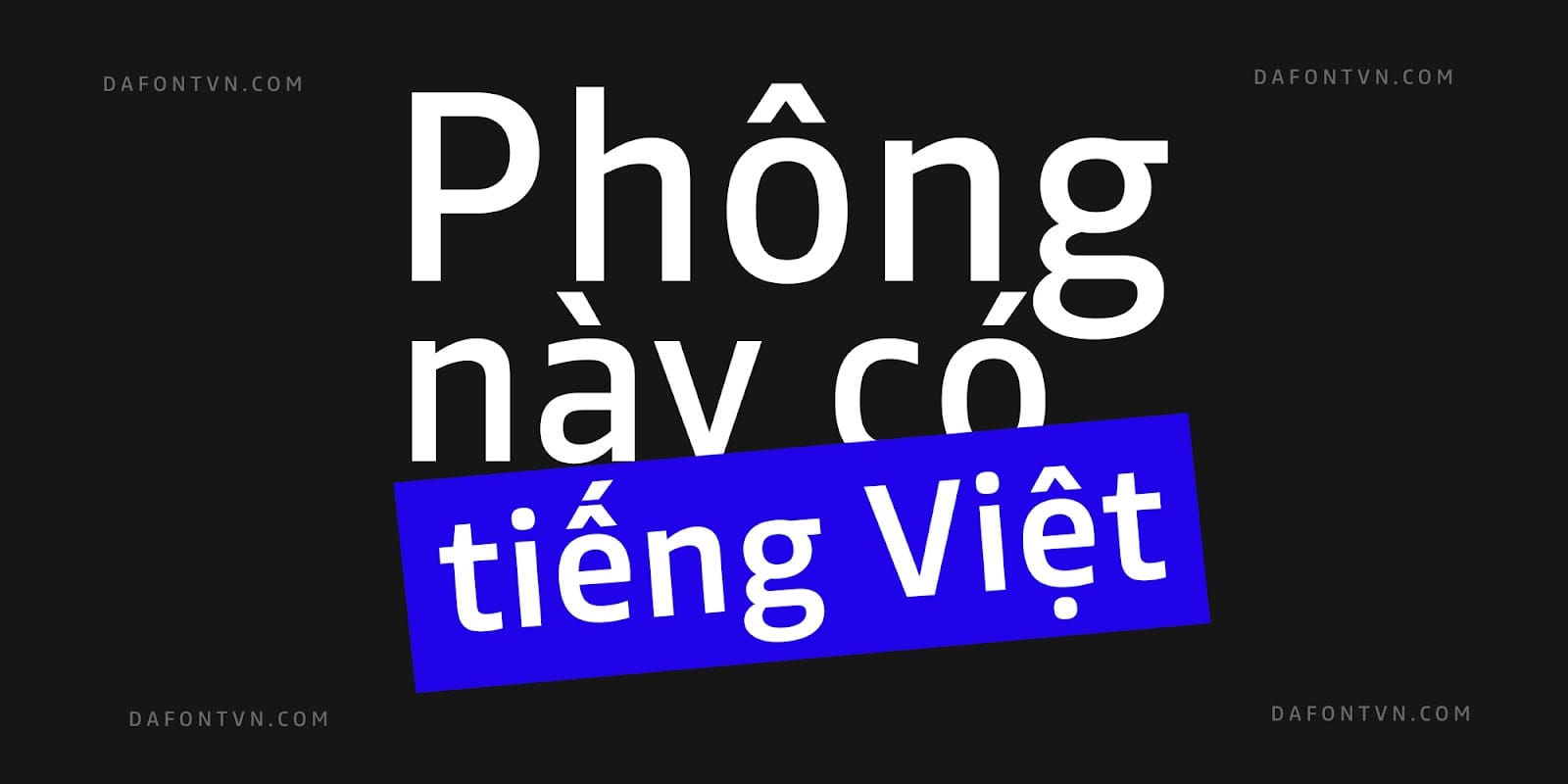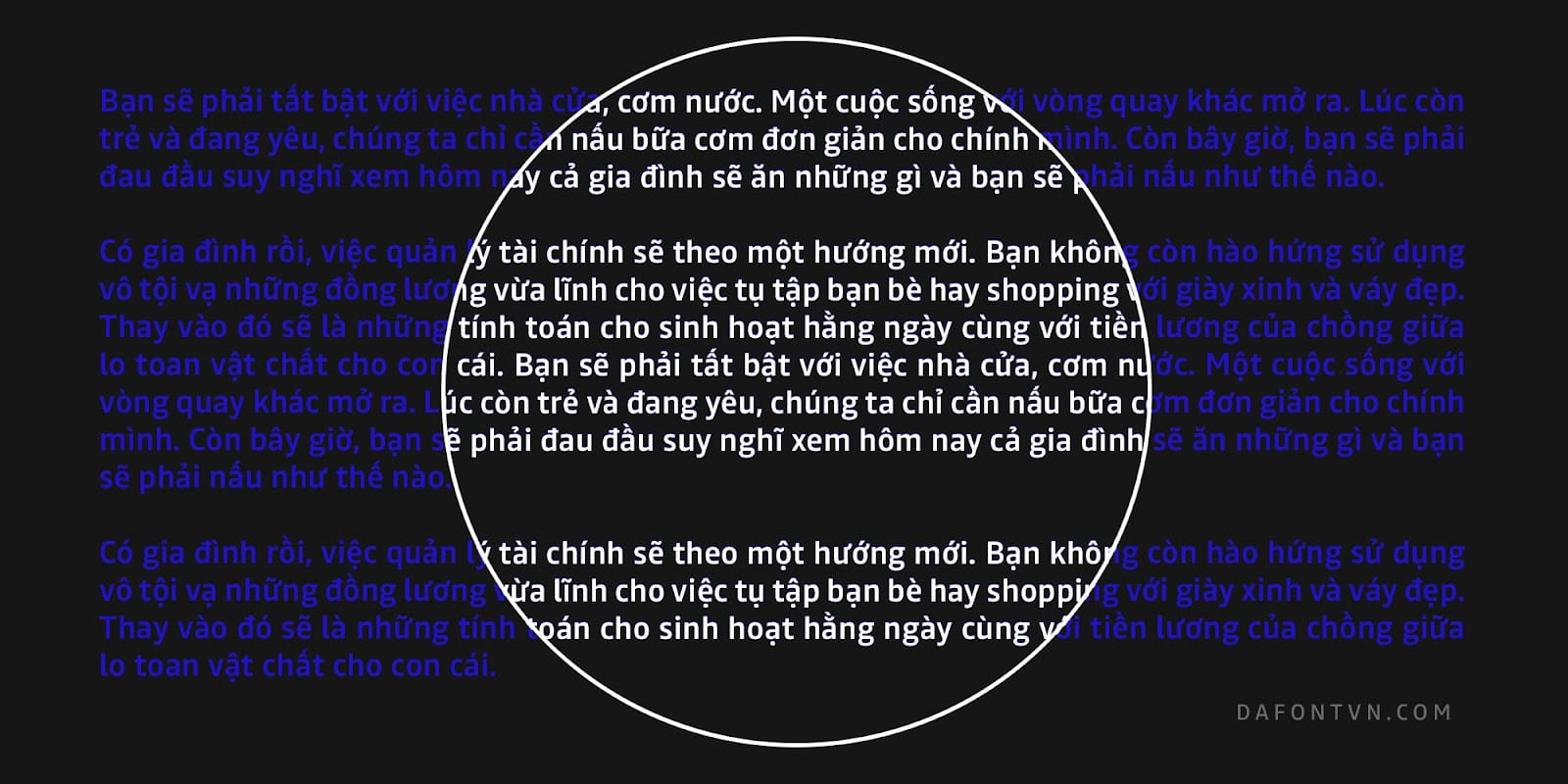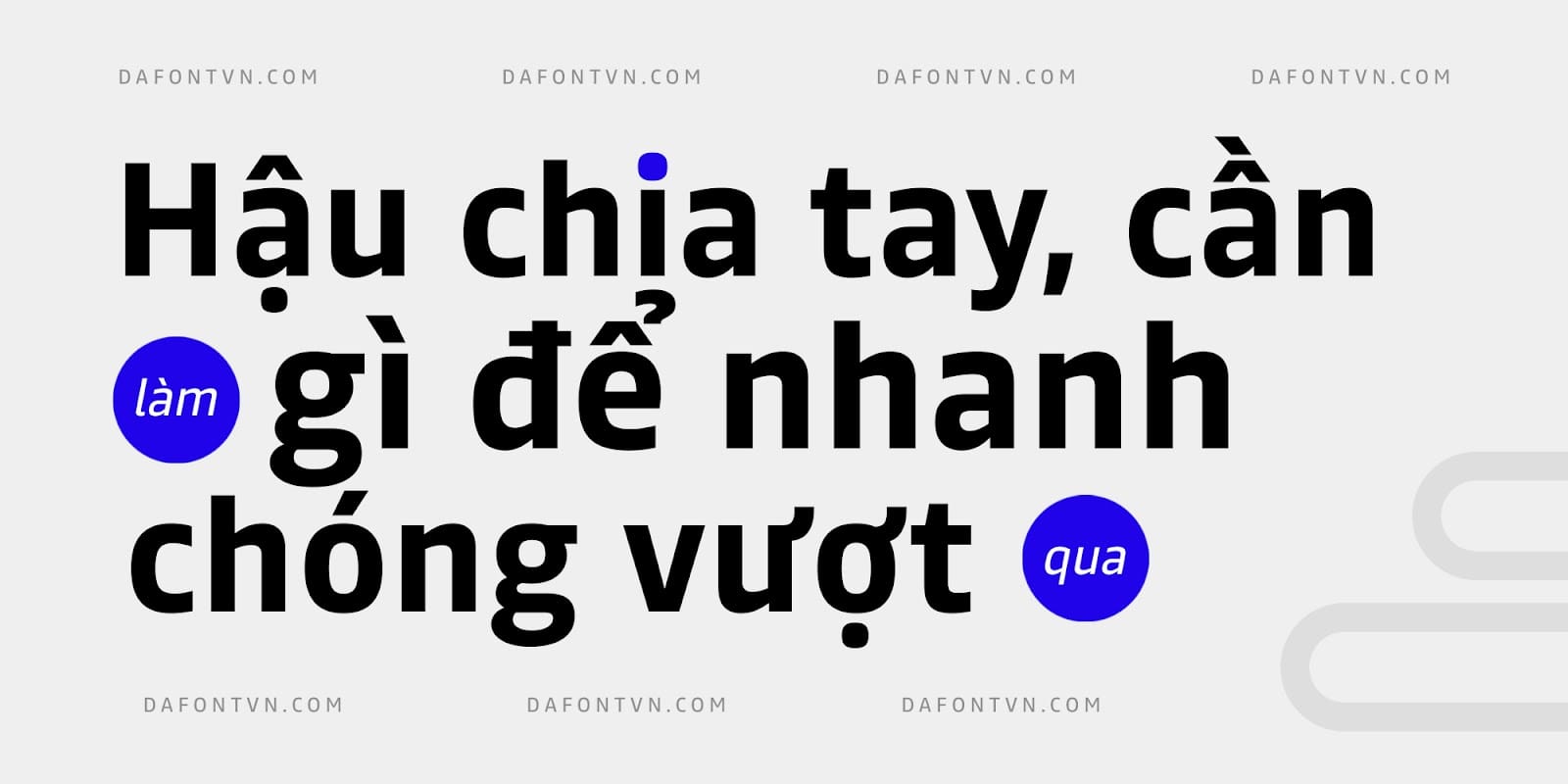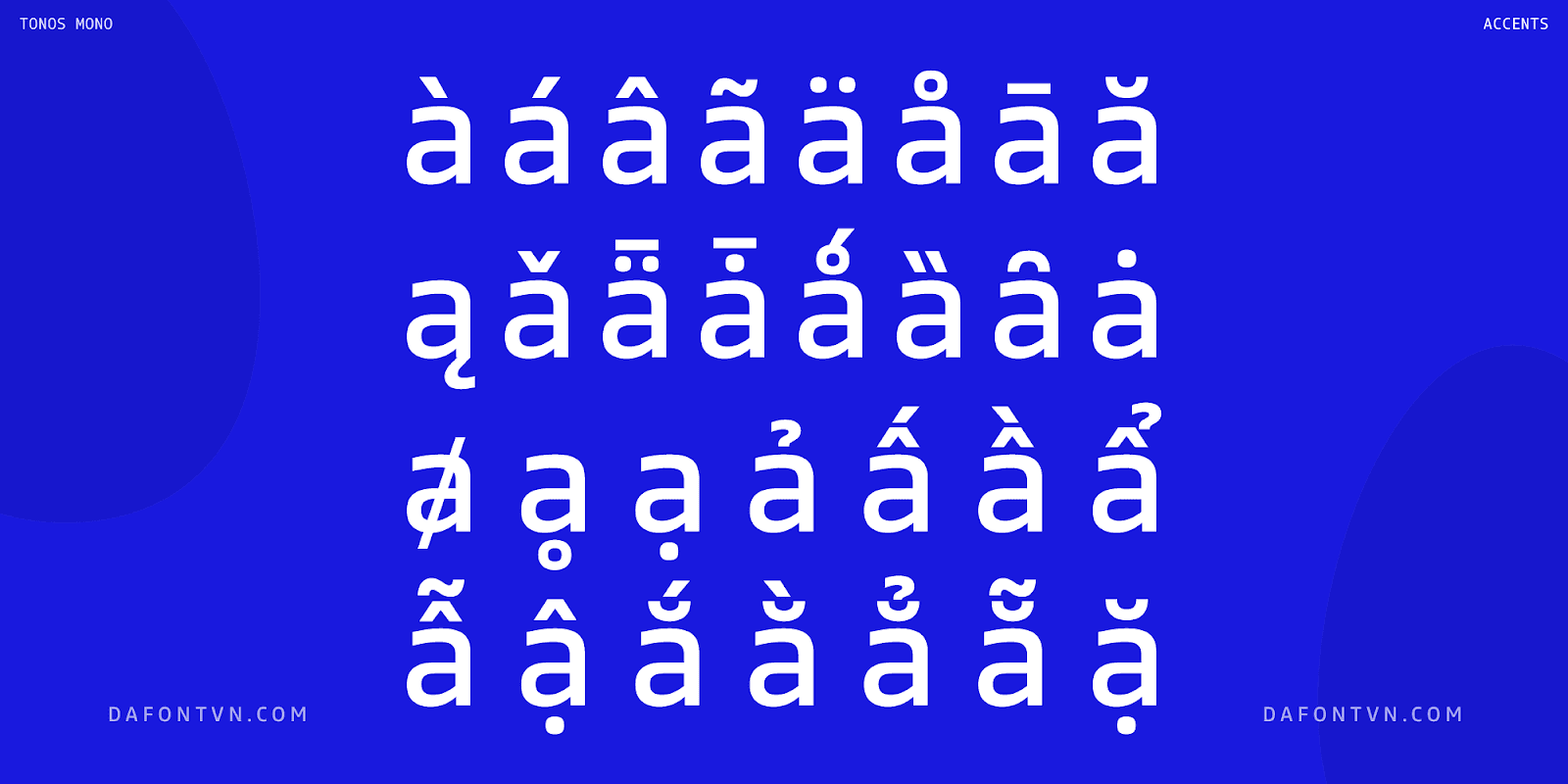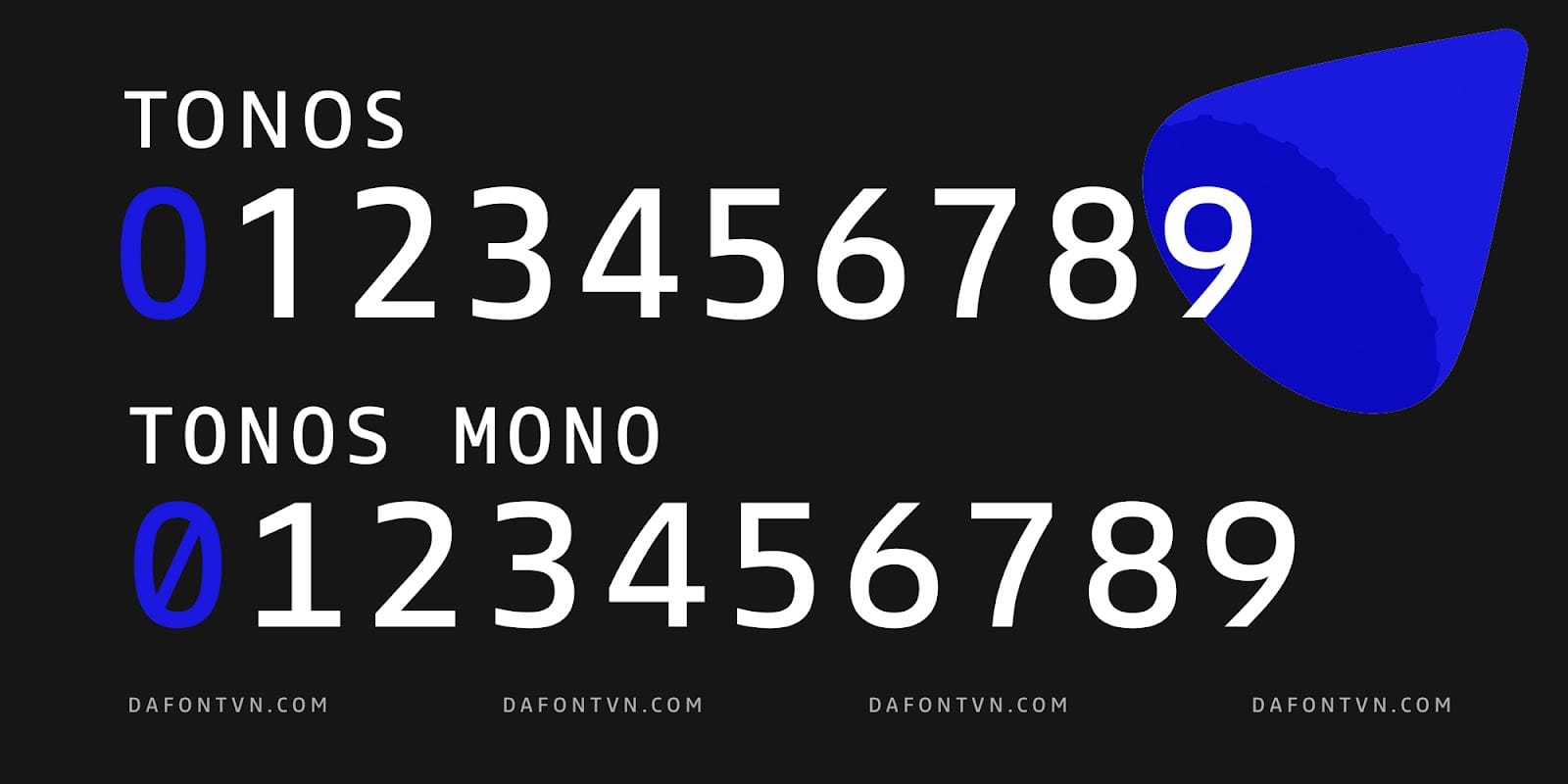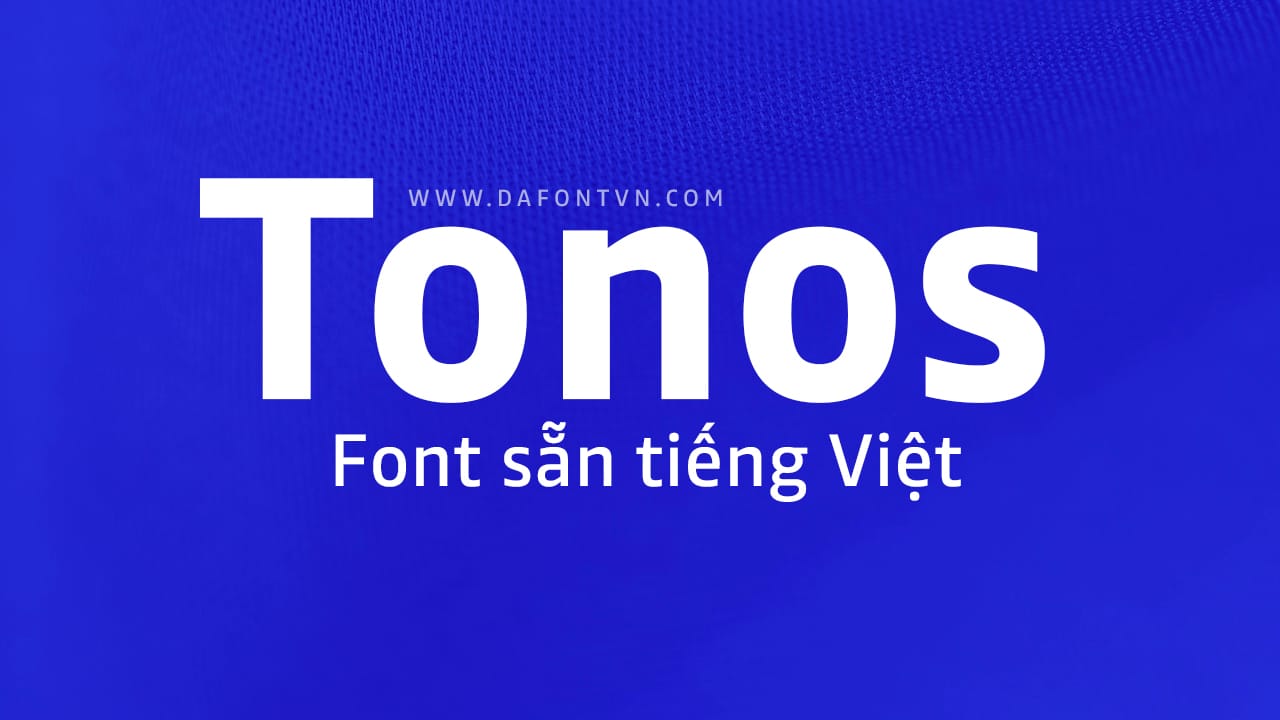
Tonos & Tonos Mono Font Family (30 font) Tonos is a sans-serif typeface specifically designed for use in UI and HMI contexts. The font is meticulously designed with harmonious strokes resulting in a font that is easy to read and solid, yet still visually appealing and easy to read.
One of the standout features of Tonos is the range of weights, from light to bold, each complemented by a practically matching italic. A great touch sets Tonos apart from other fonts and makes it ideal for use for a variety of design purposes.
Tonos also comes in two widths – condensed and normal – as well as a monospace counterpart for related writing systems. And, for even more flexibility, it’s available as a variable font with two axes: weight and width.
All in all, Tonos is an impressive achievement that reflects years of development by a dedicated design team. Its flexible design and support for multiple languages make it a great choice for any UI or HMI project where readability, functionality, and style are essential. With its attractive design and wide range of weights and widths, Tonos is sure to become a favorite among designers and developers alike.